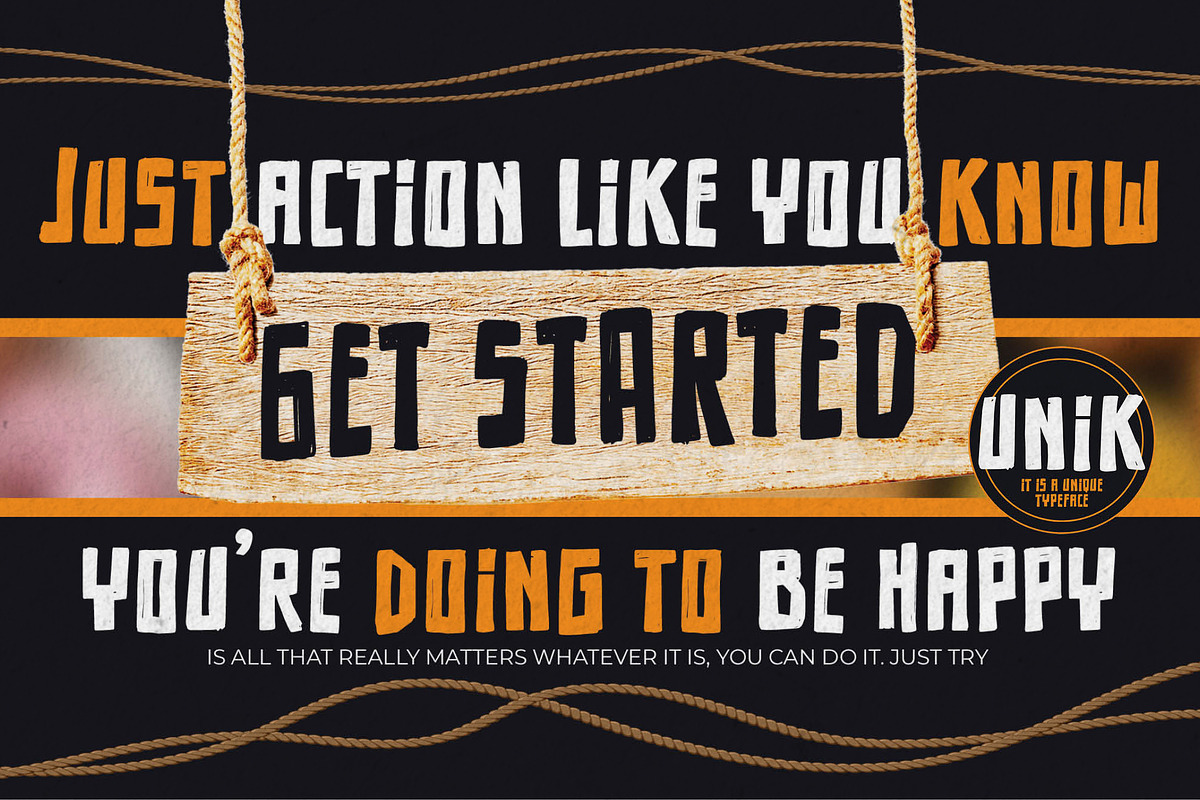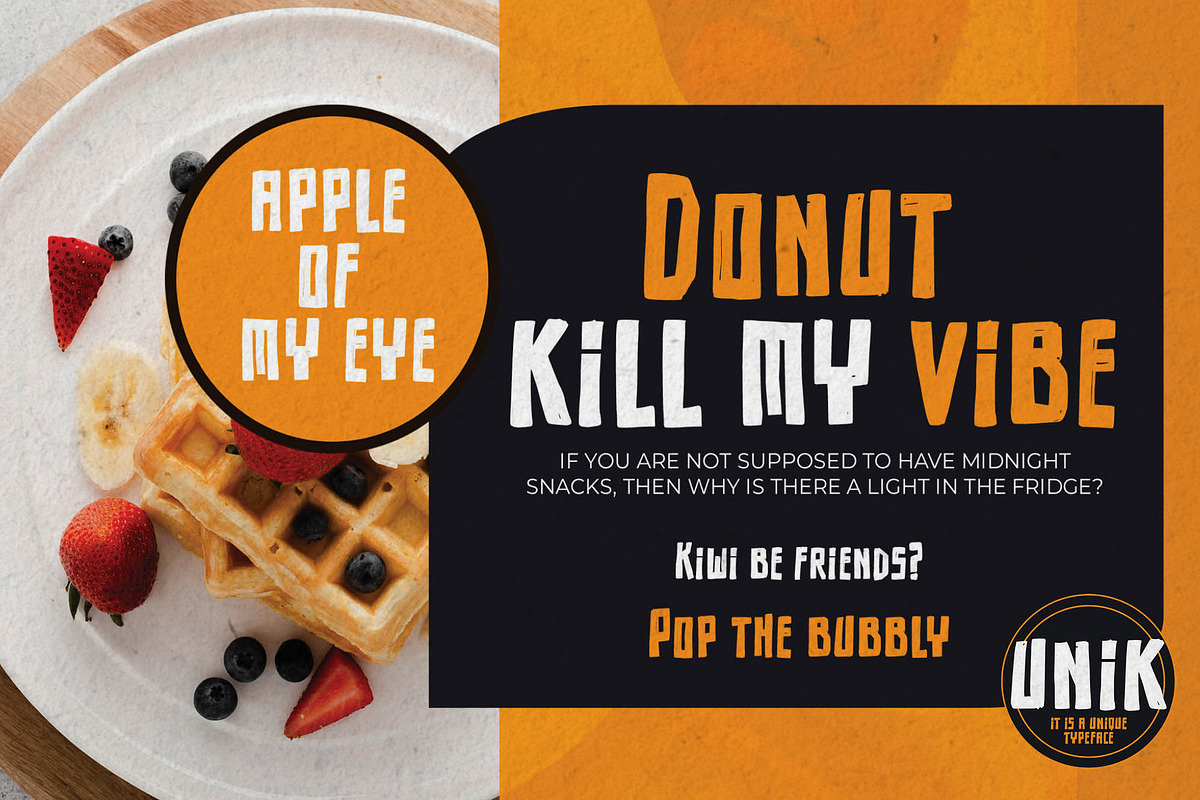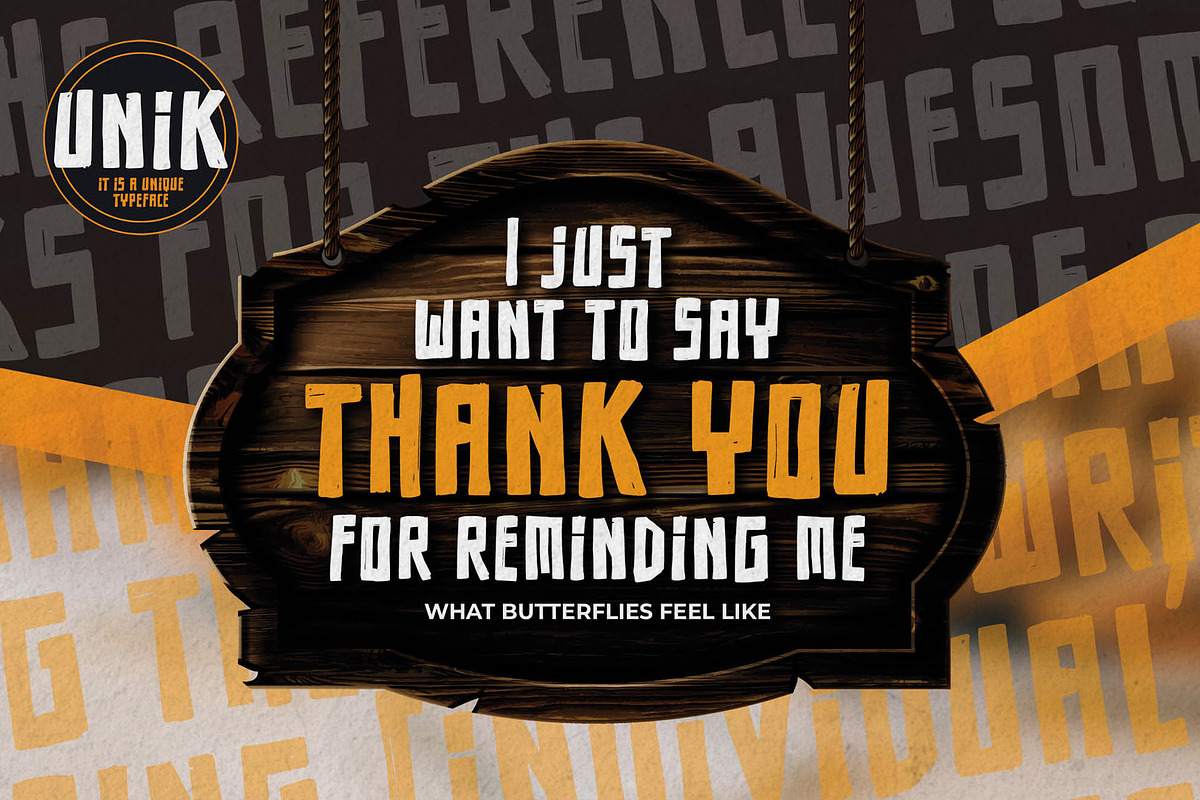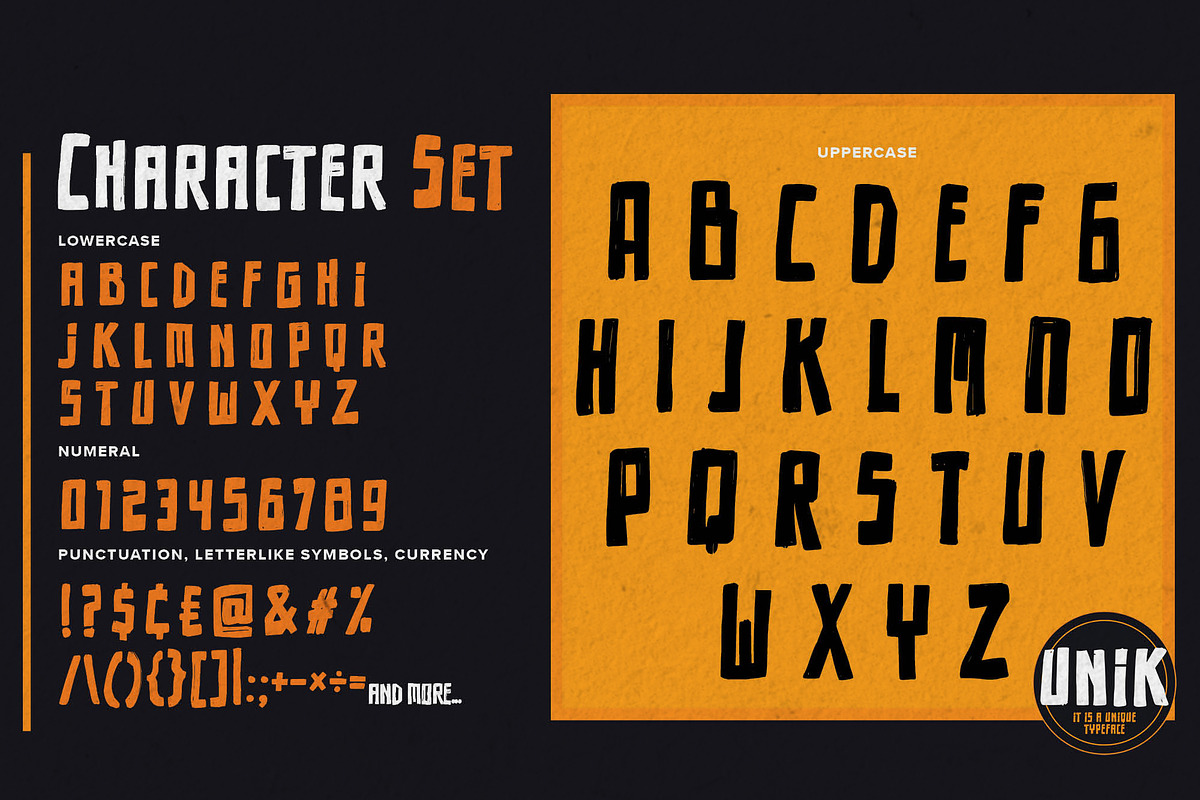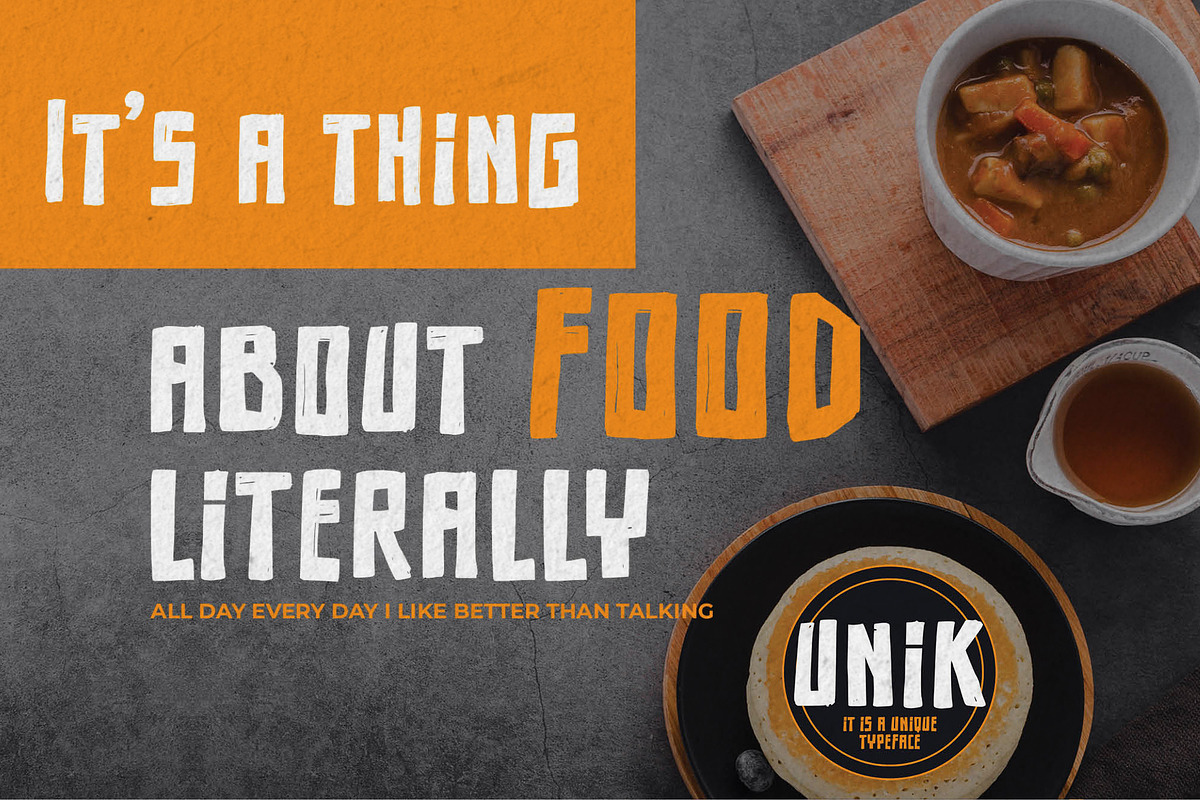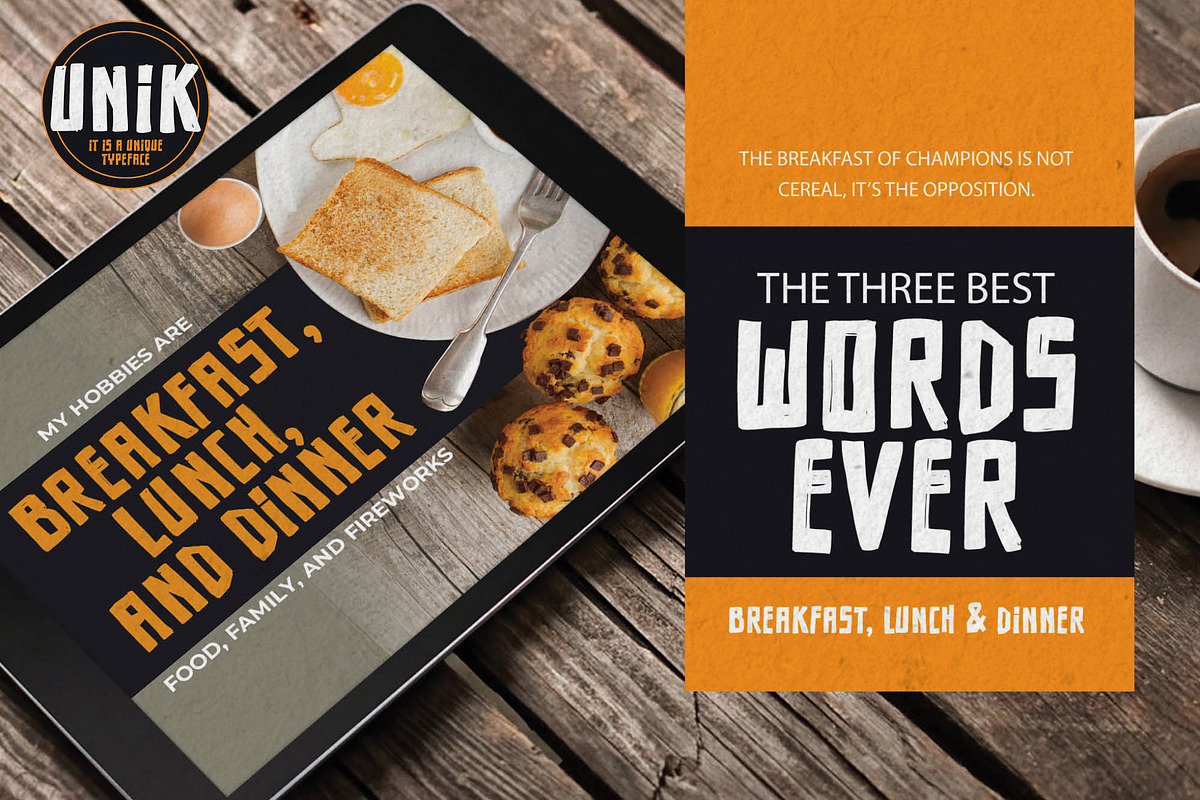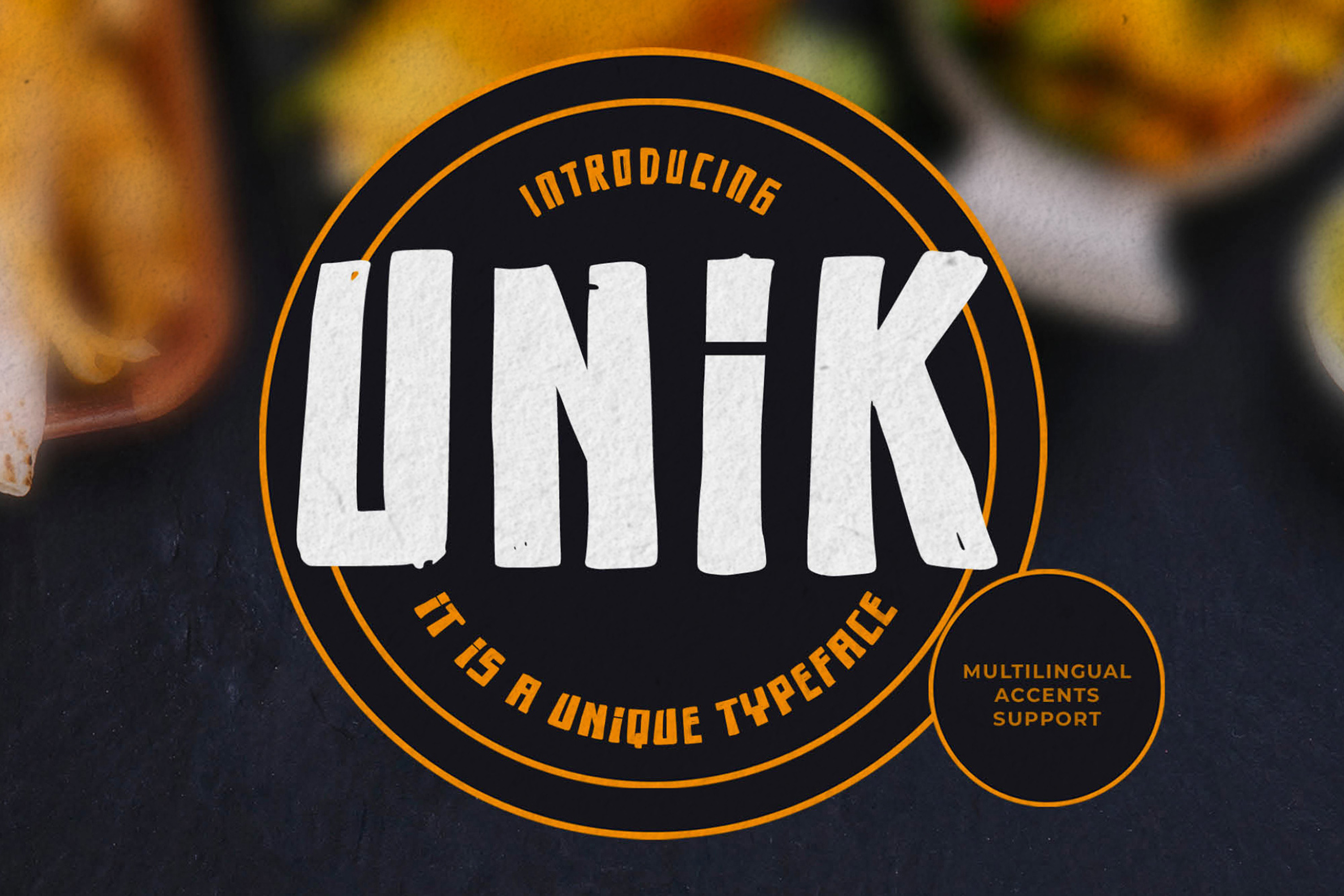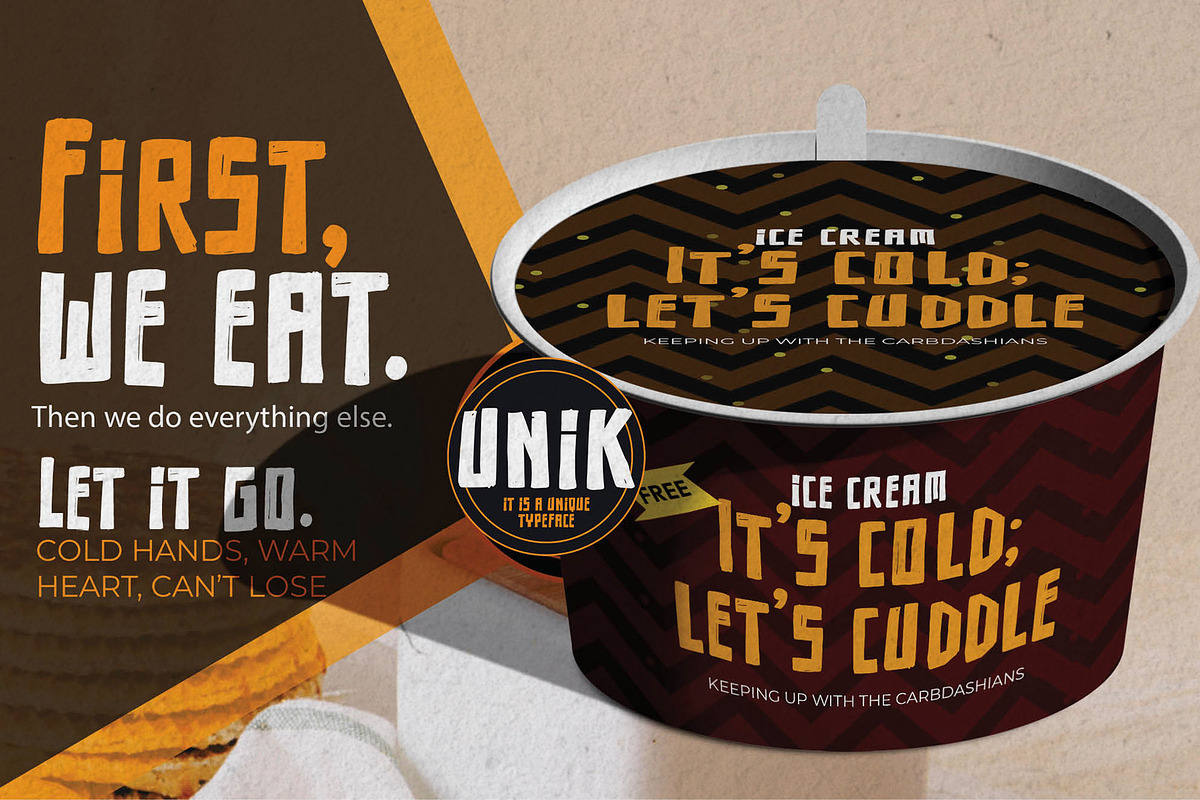
Unik – Unique Font
Here comes a New font,Introducing Unik is Unique Font ,This a Sans Serif Style and Cute Cartoon Font,Bold Display , Inspired from cartoon logos of brands that have very strong characteristics, this font is great for your creative projects such as watermark on photography, and perfect for logos & branding, invitation,advertisements,product designs, stationery, wedding designs,label ,product packaging
Unik a natural Hand Drawn Sans serif feel. This handmade font will make your design has a beautiful natural touch for each details. It is perfect for any design project as Invitation,logo, book cover, craft or any design purposes,photos, photography overlays, signs, window art, scrapbooking, tags and so much more!